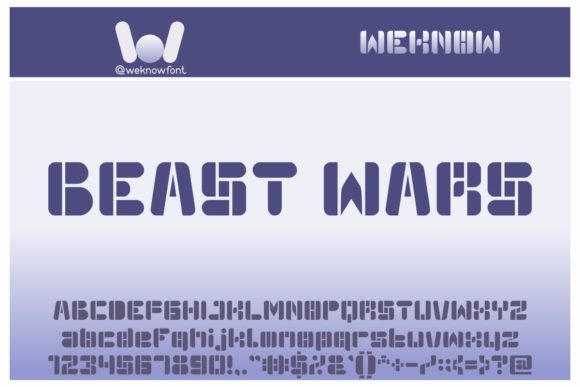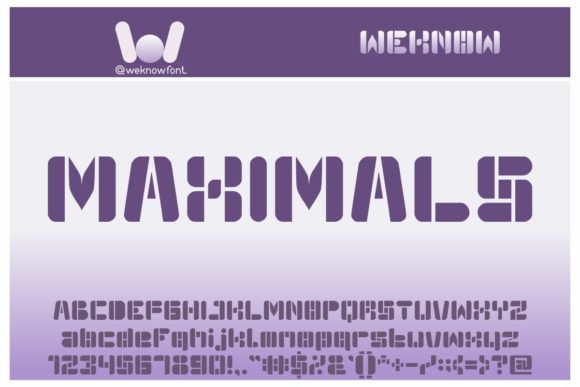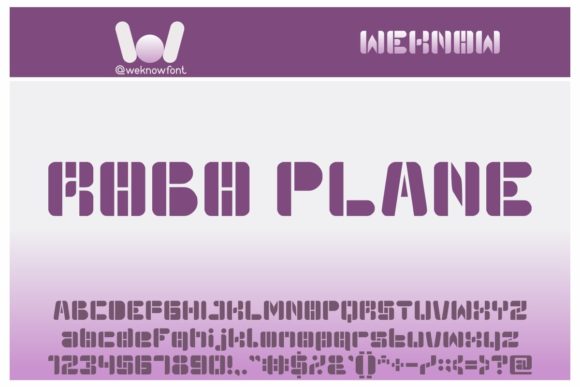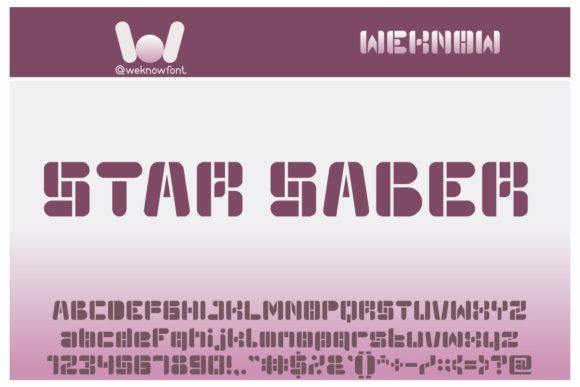
Unleash Your Creativity with Autobots Font: The Ultimate Techno Sci-Fi Font
Are you a designer, craftsperson, or enthusiast looking for a font that embodies the spirit of technology and science fiction? Look no further than the Autobots Font, a techno sci-fi themed font designed to elevate your creative projects to the next level. In this article, we’ll explore the features, benefits, and uses of the Autobots Font, and why it’s the perfect choice for your logo, branding, and design needs.
What is Autobots Font?
Autobots Font is a specially crafted font that captures the essence of science fiction and technology. Its unique design elements and futuristic style make it an ideal choice for projects that require a bold, edgy, and modern look. Whether you’re creating a logo, headline, or brand identity, Autobots Font is the perfect tool to convey innovation, dynamism, and forward-thinking.
Key Features of Autobots Font
- Techno Sci-Fi Theme: Autobots Font boasts a distinct techno sci-fi theme that instantly adds a futuristic touch to your designs.
- Versatile: This font is suitable for a wide range of applications, including logos, logotypes, headlines, corporate identity, brand identity, apparel, posters, music, movies, games, magazines, books, comics, cartoons, YouTube, Instagram, websites, and more.
- Highly Legible: Despite its futuristic design, Autobots Font remains highly legible, ensuring that your message is conveyed clearly and effectively.
- Customizable: With its extensive range of design possibilities, Autobots Font allows you to experiment with different styles, colors, and effects to match your brand’s unique personality.
Benefits of Using Autobots Font
Using Autobots Font in your design projects offers numerous benefits, including:
- Instant Recognition: The unique and bold design of Autobots Font ensures instant recognition, making it perfect for logos, branding, and advertising.
- Professional Look: With its futuristic and techno sci-fi theme, Autobots Font adds a professional and modern touch to your designs, setting you apart from the competition.
- Time-Saving: Autobots Font saves you time and effort in creating custom fonts or searching for suitable alternatives, allowing you to focus on other creative aspects of your project.
Who Can Benefit from Autobots Font?
Autobots Font is an excellent choice for:
- Graphic Designers: Add a futuristic touch to your designs and take your branding, logos, and advertising to the next level.
- Crafters: Create eye-catching and unique crafts, such as customized apparel, accessories, and DIY projects.
- Marketers: Develop bold and attention-grabbing marketing materials, including posters, flyers, and social media graphics.
- Game Developers: Enhance your game’s visual identity with a font that embodies the spirit of technology and science fiction.
- Content Creators: Elevate your YouTube, Instagram, and website content with a modern and futuristic font that resonates with your audience.
Autobots Font is a game-changing font that offers a unique blend of techno sci-fi style, versatility, and legibility. Whether you’re a designer, craftsperson, or enthusiast, this font is the perfect tool to unleash your creativity and take your projects to new heights. With its extensive range of applications and benefits, Autobots Font is an essential asset for anyone looking to add a futuristic touch to their designs.